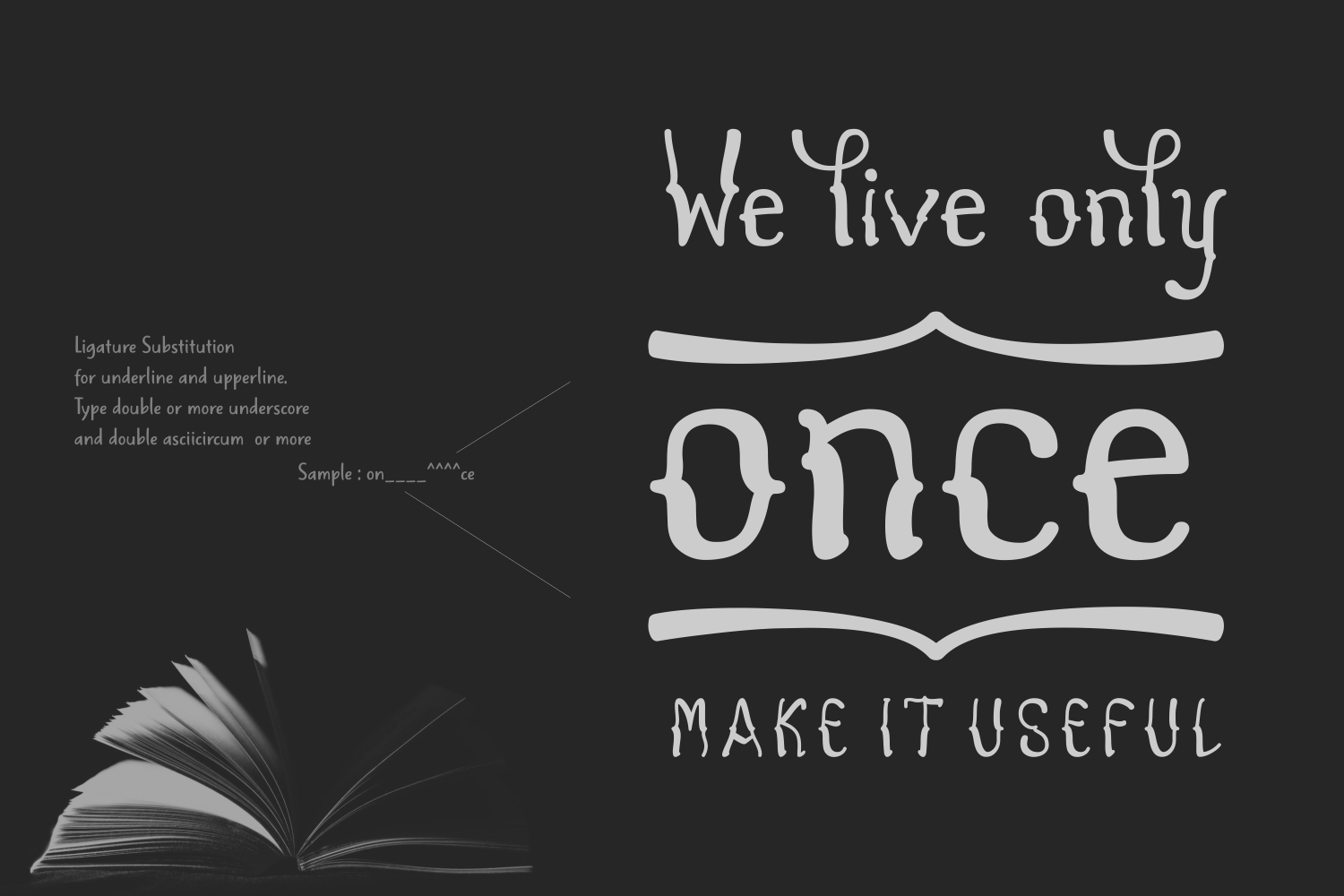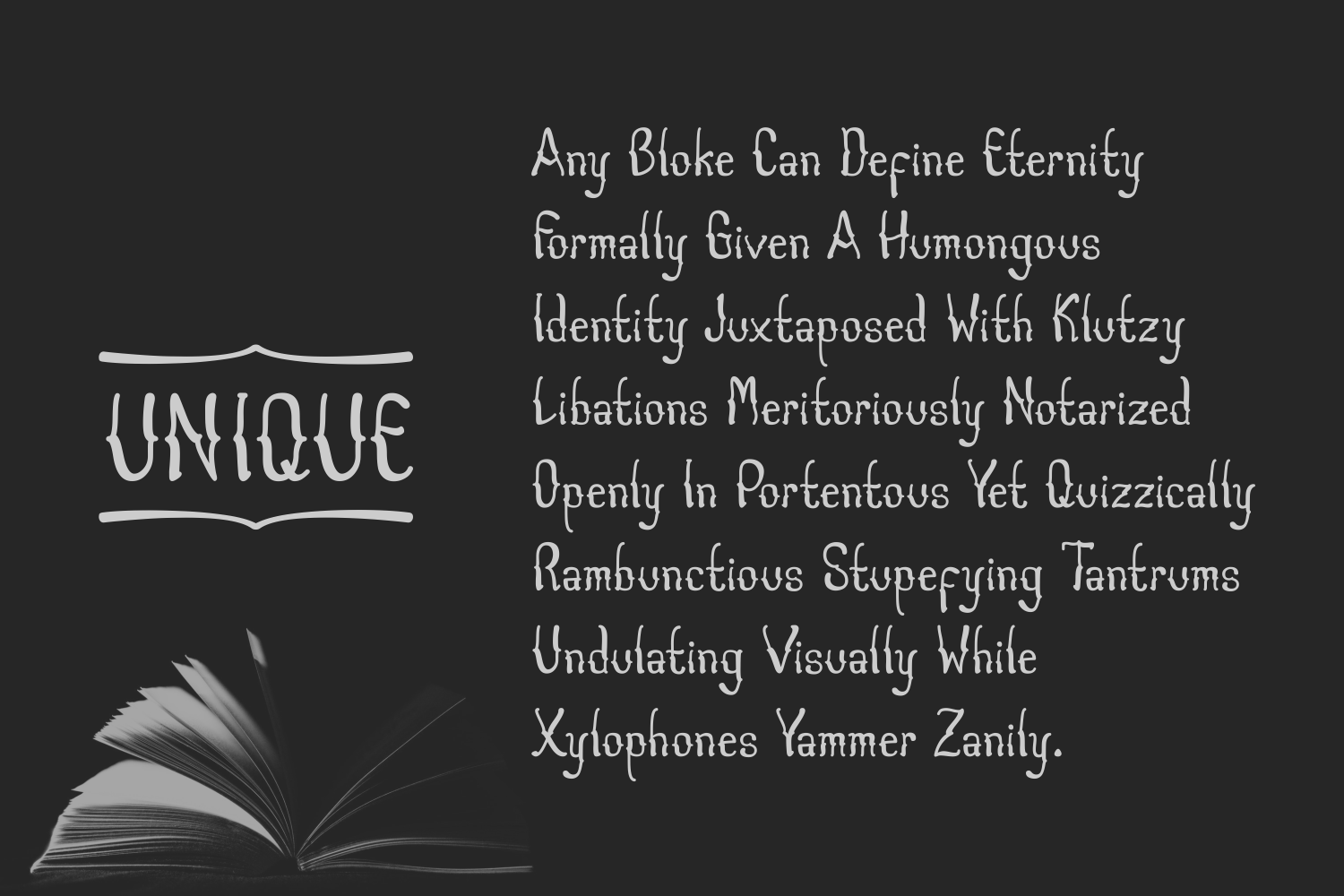
Caboge Font: Elevate Your Designs with Elegance and Sophistication
In the world of typography, fonts play a crucial role in conveying the tone and personality of a design. For designers and crafters looking to add a touch of elegance and sophistication to their work, the Caboge font is an excellent choice. This stunning display font features small decorative elements that give it a classical, authentic look and feel, making it perfect for making your designs stand out while keeping the text legible.
The Characteristics of Caboge Font
Caboge is an elegant display font that boasts a range of characteristics that set it apart from other fonts. Its small decorative elements add a touch of sophistication and refinement, giving it a classical look that is reminiscent of traditional serif fonts. The font’s design is carefully crafted to ensure that it remains legible, even at larger sizes, making it perfect for use in a variety of design applications.
Key Features of Caboge Font
- Elegant Display Font: Caboge is designed to make a statement, with its elegant and refined design making it perfect for use in display text.
- Small Decorative Elements: The font’s small decorative elements add a touch of sophistication and refinement, giving it a classical look and feel.
- Classical, Authentic Look: Caboge’s design is inspired by traditional serif fonts, giving it a timeless and authentic look that is perfect for designs that require a touch of elegance.
- Legible: Despite its decorative elements, Caboge remains highly legible, even at larger sizes, making it perfect for use in a variety of design applications.
Uses of Caboge Font
Caboge font is perfect for a wide range of design applications, including:
- Logo Design: The font’s elegant design makes it perfect for use in logo design, where a touch of sophistication and refinement is required.
- Poster Design: Caboge’s decorative elements make it perfect for use in poster design, where a bold and eye-catching font is required.
- Wedding Invitations: The font’s classical, authentic look makes it perfect for use in wedding invitations, where a touch of elegance and sophistication is required.
- Branding: Caboge’s elegant design makes it perfect for use in branding, where a font that conveys sophistication and refinement is required.
Why Choose Caboge Font?
There are many fonts available that offer a similar look and feel to Caboge, but here are a few reasons why Caboge stands out:
- Unique Design: Caboge’s design is carefully crafted to ensure that it remains unique and stands out from other fonts.
- Highly Legible: Despite its decorative elements, Caboge remains highly legible, even at larger sizes.
- Versatile: Caboge is perfect for use in a wide range of design applications, from logo design to poster design.
Tips for Using Caboge Font
Here are a few tips for using Caboge font in your designs:
- Use it Sparingly: Caboge is a bold font, so it’s best to use it sparingly to avoid overwhelming the design.
- Pair it with a Simple Font: Pairing Caboge with a simple font can help to create a balanced design.
- Experiment with Different Sizes: Caboge remains legible even at larger sizes, so don’t be afraid to experiment with different sizes to create visual interest.
| Font Name | Caboge Font |
| Author | Omus (7ntypes) |
In conclusion, Caboge font is a stunning display font that offers a unique blend of elegance and sophistication. Its small decorative elements give it a classical, authentic look and feel, making it perfect for making your designs stand out while keeping the text legible. With its versatility, legibility, and unique design, Caboge is an excellent choice for designers and crafters looking to elevate their designs.